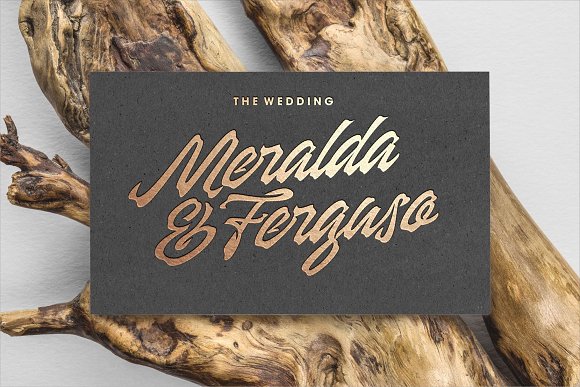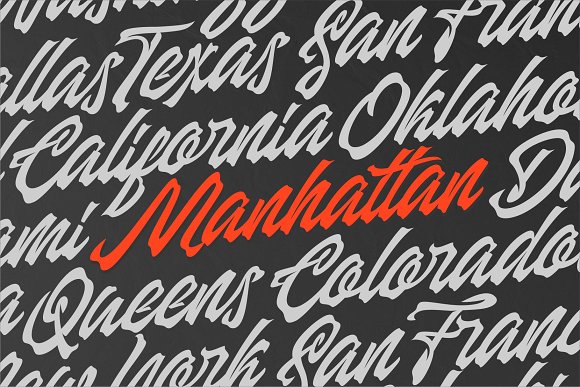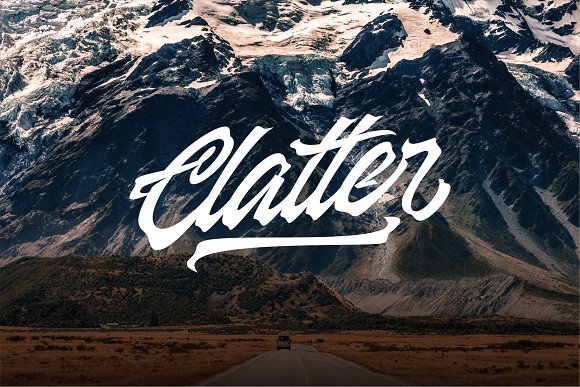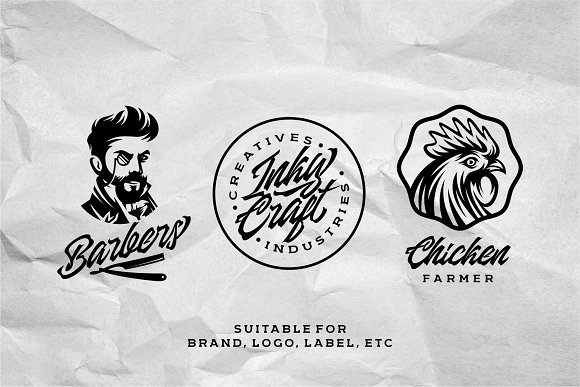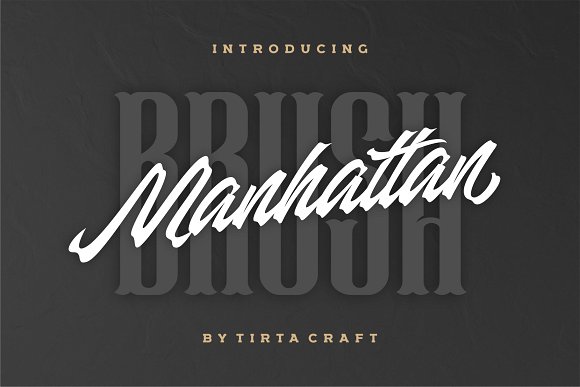
Manhattan Brush Ink Script Font
Hello world..!! This is a handwritten, brush pen and texture font that carefully crafted and manually designed directly on paper. It is really great for any creative project. Introducing Manhattan Font! Manhattan designed and shared by Typovecto Std. Manhattan Brush Ink Script Font is the first commercial typeface from Tirta Craft. With classic, elegant, vintage, luxury, and clean feel.
The classic style is perfect to apply in various formal forms such as invitations, labels, menus, Logos, fashion, make up, stationery, letterpress, romantic novels, magazines, books, greeting / wedding cards, packaging, labels.